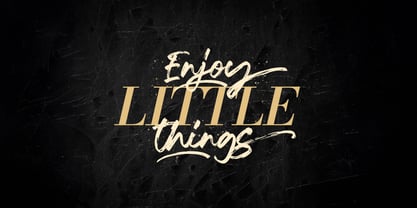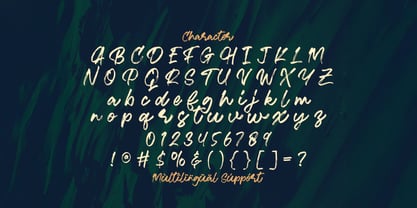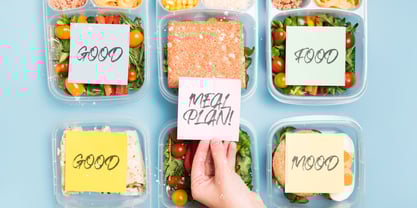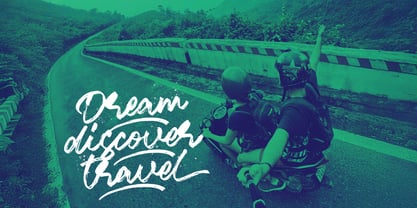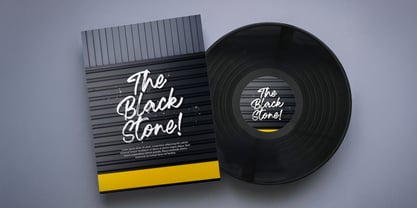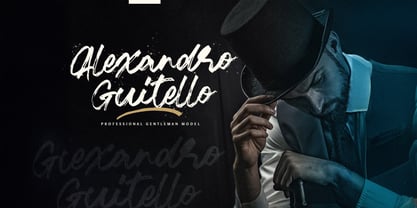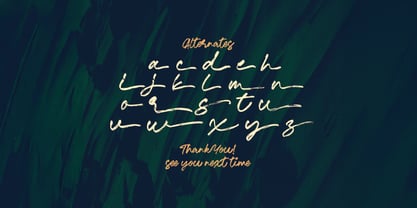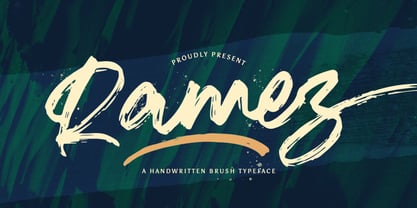
The Ramez Font Family was designed by Virgiawan Listanto and published by Stringlabs Creative Studio. Ramez contains 1 styles.
Ramez is a bold textured brush font packed with energy, grit, and attitude. With rough edges, dynamic strokes, and a handcrafted feel, this font adds a raw, expressive character that’s perfect for standout, rebellious design work.
Ramez